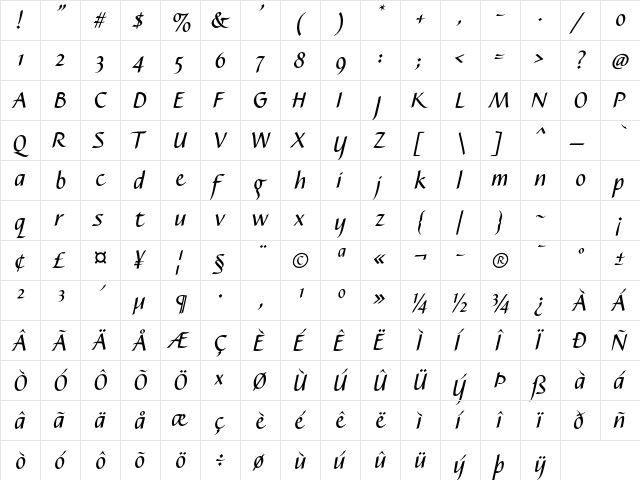
Caterina LT Std Italic
| Foundry | Linotype GmbH |
| Designer | Paul Veres |
Design Context for Caterina LT Std Typeface
Caterina LT Std takes a measured approach to typography — its balanced proportions and neutral character make it a reliable workhorse for both digital and print work. The slanted form adds forward momentum and visual energy. Its slender proportions lend an understated elegance to any composition.
Pro Tip: Use Caterina LT Std for emphasis, pull quotes, and subheadings where its slanted energy can add rhythm to the layout.